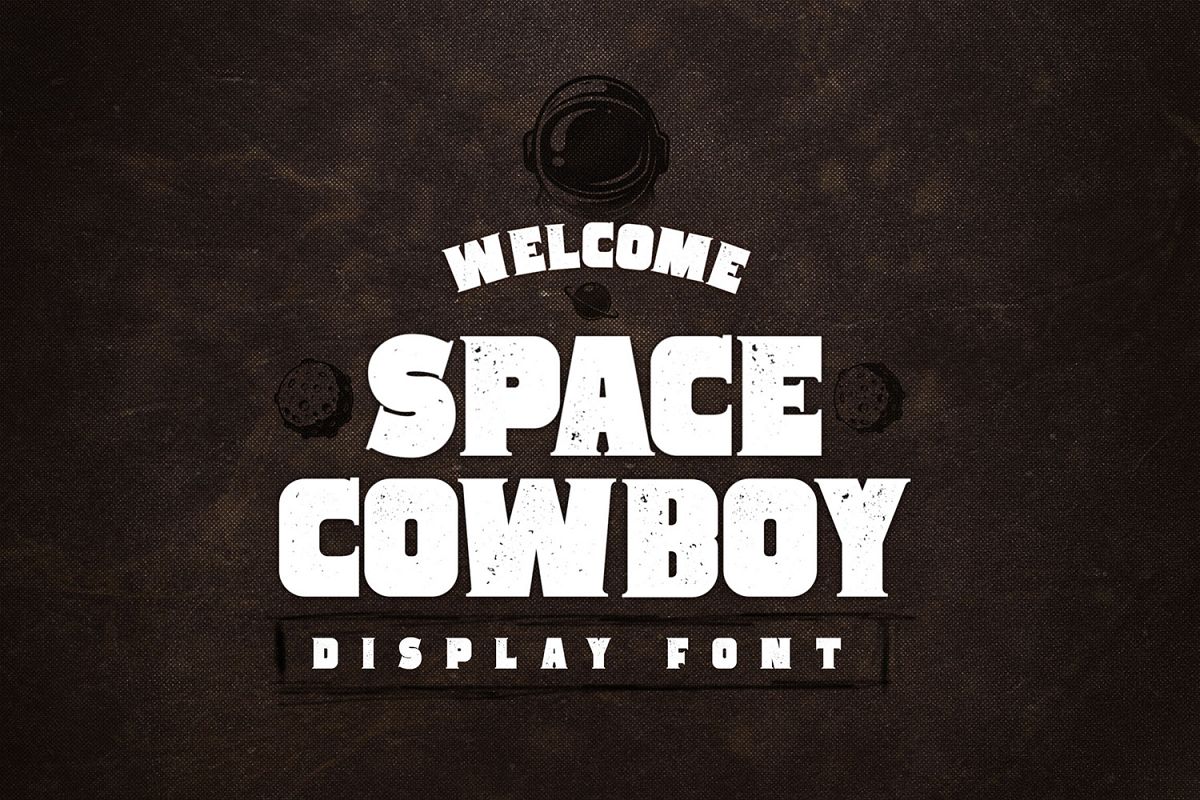
Space Cowboy - Display Serif Font
Space Cowboy is a bold aged display/serif font. Perfect for making a rustic impression on your layouts. Also goes very well as a text overlay to any background image.
• Two versions - Clean and Distressed
• All Caps Font